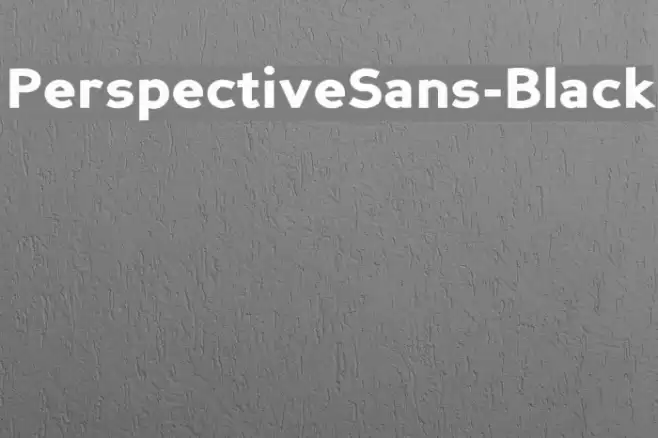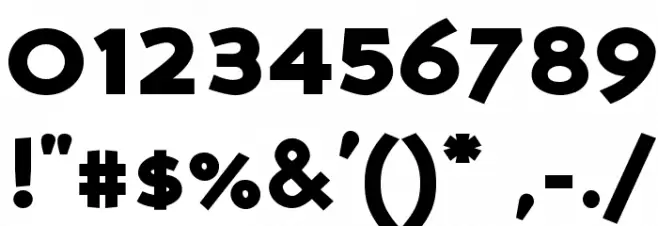
PerspectiveSans-Black Font
PerspectiveSans-Black Description
This font features a bold and modern sans-serif style with clean, geometric lines. The characters are uniformly thick, providing a strong and assertive appearance. The uppercase letters are slightly wider, giving them a commanding presence, while the lowercase letters maintain a consistent height, ensuring readability. The numerals are well-proportioned and align perfectly with the overall design, making them suitable for both text and display purposes. Special characters are distinct and clear, enhancing the font's versatility. The overall design is sleek and contemporary, ideal for projects that require a bold statement.
A bold, modern sans-serif font with geometric lines and strong presence from Uncategorized fonts.
- Proposed Projects: Ideal for branding, advertising, headlines, and digital media where a bold and modern look is desired.
- Use Case: Headlines, Logos, Branding